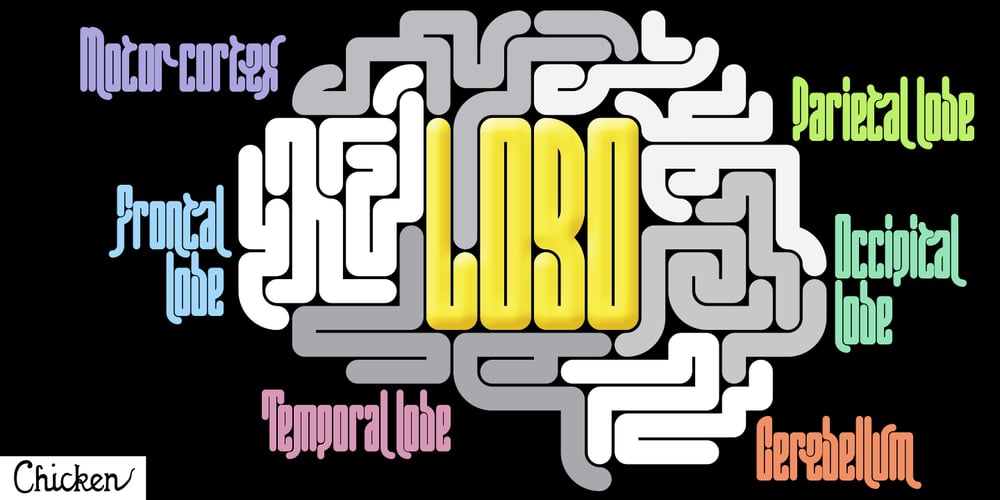
Lobo
Lobo font
Lobo Font Family was designed by Tim Barnes and published by chicken. Lobo contains 2 styles and family package options. A juicy, mighty-morphing, modular font extracted from the crevices and convolutions of the brain, with nifty coding to cram every gap with tails and curlicues.